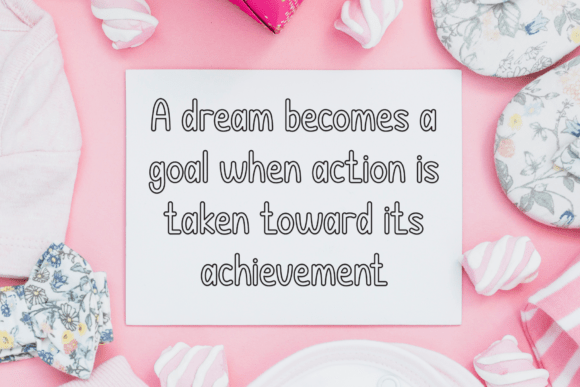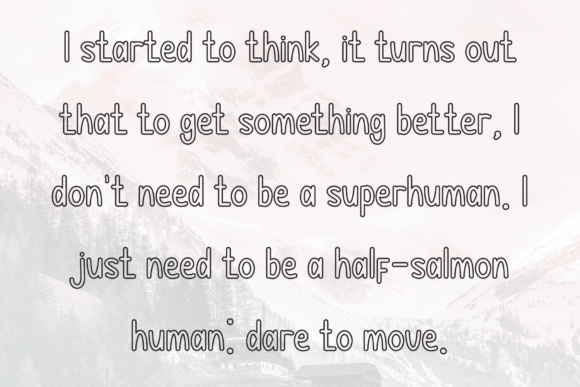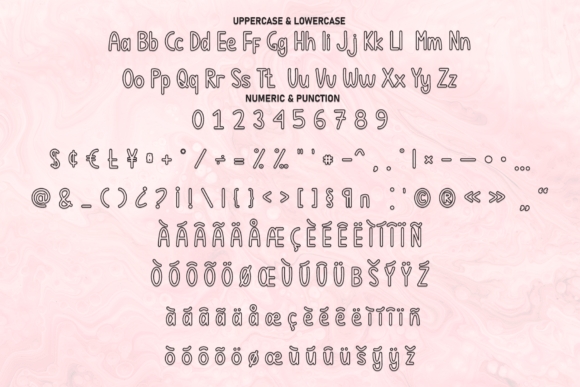
Introduction to Pink Lava Font
Have you ever stumbled upon a font that perfectly captures the essence of your creative project? For designers, this moment is a treasure trove of inspiration and a reminder that the right design resource can elevate any concept. That’s exactly what the Pink Lava Font does – it brings warmth and clarity to your work, making every message feel genuine and inviting.
As a high-quality, clean, and approachable font, Pink Lava Font is a valuable addition to any designer’s toolkit. Its balanced letterforms ensure readability, while its transparent background makes it easy to layer and combine with other design elements. Whether you’re working on a branding project or an everyday design, this free download is sure to spark your creativity.
Key Features of Pink Lava Font
- Includes a large character set, covering a wide range of languages, making it suitable for diverse creative projects.
- Designed to be highly legible, with clear and crisp typography, ideal for use in various design contexts.
- Perfect as a design resource for creatives working on projects that require a bold, eye-catching font.
Honest Review: Pink Lava Font
One of the things that stands out about this font is its versatility. It’s perfect for a creative project that needs a touch of whimsy and playfulness. The high-quality design is evident in every letter, making it a great choice for any project.
Here are some of the things that work well with the Pink Lava Font:
- ✨ Great for creative projects that need a bold, eye-catching font.
- ✨ Works well with a transparent background to really make the font pop.
- ⚠️ The font may be too bold for some projects, so be sure to use it sparingly.
- ⚠️ Some users may find the font difficult to read in certain contexts.
Overall, I’m really impressed with the Pink Lava Font. It’s a great addition to any designer’s library, and I’ve already used it in several projects. If you’re looking for a high-quality, free font for your next creative project, I highly recommend giving it a try.
Use the Pink Lava Font to add a touch of creativity to your design. Combine it with other high-quality design resources to create a unique and eye-catching visual identity.
The Pink Lava Font is perfect for creative projects that require a bold and eye-catching font. It’s a great addition to any design, from social media graphics to presentations and documents.